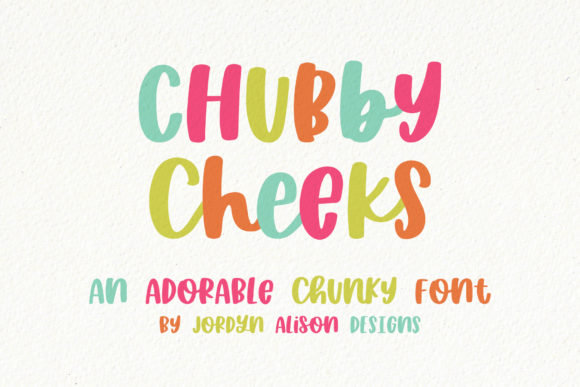
Introducing Chubby Cheeks Font: A Whimsical Handwritten Delight for Your Digital Creations
In the realm of digital artistry, where creativity knows no bounds, Chubby Cheeks Font emerges as a captivating script font that adds a touch of whimsy and charm to your digital endeavors. With its playful, hand-lettered style and pleasingly thick strokes, Chubby Cheeks is a font that demands attention and leaves a lasting impression.
Unleash Your Inner Artist with Chubby Cheeks
With Chubby Cheeks Font as your creative companion, the possibilities are limitless. Whether you're a seasoned designer or just starting your journey into the world of digital art, this font is your key to unlocking a treasure trove of artistic expression. Use Chubby Cheeks to add a personal touch to your branding, captivating social media posts, and eye-catching SVG designs. The possibilities are endless, just like your imagination.
Embrace the Joy of Effortless Creativity
Using Chubby Cheeks Font is as easy as falling in love with its charming aesthetics. Its thick strokes make it ideal for cutting with vinyl or paper, allowing you to effortlessly bring your digital designs into the physical world. Whether you're creating custom decals for your home décor or designing intricate paper crafts, Chubby Cheeks is the perfect font to add a handmade touch to your creations.
Stand Out from the Crowd with Chubby Cheeks
In a digital landscape saturated with content, it's essential to make a statement and leave a lasting impression. Chubby Cheeks Font does just that. Its unique hand-lettered style instantly grabs attention and sets your designs apart from the ordinary. Whether you're creating social media graphics, designing logos, or crafting website headers, Chubby Cheeks ensures that your creations stand out from the crowd.